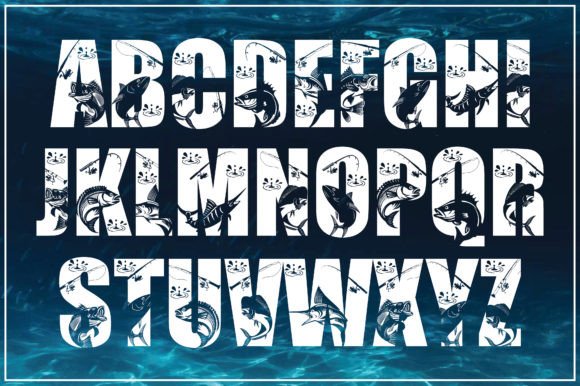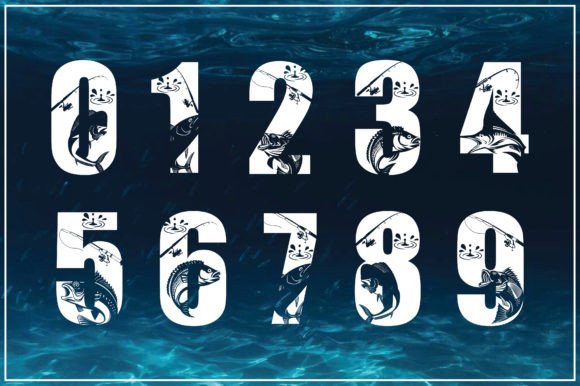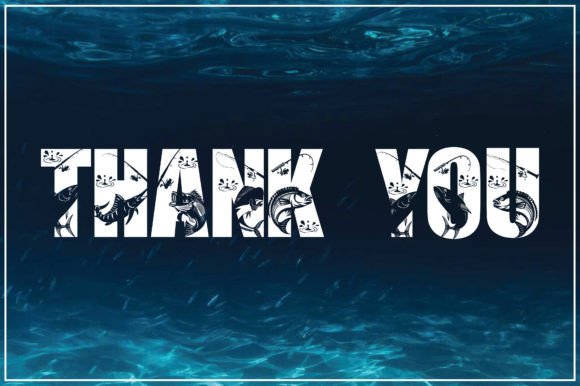
Introduction to Fishing Today Font
FishingToday is a thick lettered and incredibly unique display font.
FishingToday is a thick lettered and incredibly unique display font. It can be used for various design ideas, particularly those related to childrenโs games, science, space exploration
Key Features of Fishing Today Font